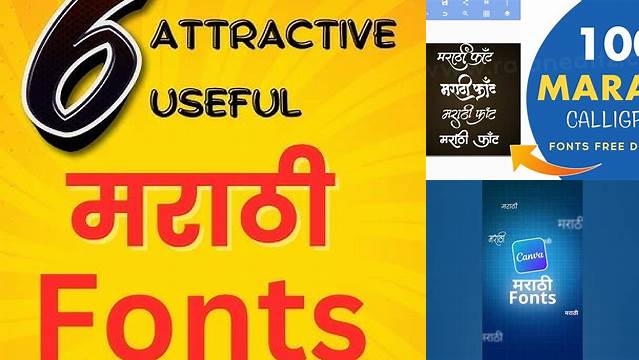
Download Marathi Fonts For Canva: Your Ultimate Guide
Are you looking to add a touch of authenticity and cultural flair to your designs on Canva? If so, you've come to the right place! In this comprehensive guide, we'll dive deep into the world of Marathi fonts for Canva, exploring everything from why they're important to how you can download and use them effectively. Whether you're creating social media graphics, presentations, or marketing materials, using the right Marathi font can make all the difference. So, let's get started, guys!
Why Use Marathi Fonts in Canva?
When it comes to design, typography plays a crucial role in conveying the right message and setting the tone. For projects targeting a Marathi-speaking audience, using Marathi fonts is not just a matter of aesthetics; it's about respect, connection, and effective communication. Imagine you're creating a poster for a local festival in Maharashtra. Using a generic English font might look out of place and fail to resonate with the audience. However, a beautifully crafted Marathi font can instantly grab attention, evoke a sense of cultural pride, and make the message more relatable. Moreover, using native fonts ensures that your content is accessible and readable to your target demographic. It shows that you understand and value their language and culture, which can significantly boost engagement and brand loyalty. In a globalized world, where cultural sensitivity is highly valued, incorporating Marathi fonts into your designs demonstrates inclusivity and a genuine effort to connect with your audience on a deeper level. Plus, let's be honest, using the correct font just makes your design look way more professional and polished, right? It's like wearing the right outfit to an important event β you want to make a good impression!
Understanding the Importance of Typography in Design
Now, let's talk a bit more about why typography, in general, is so vital in design. Typography is the art and technique of arranging type to make written language legible, readable, and appealing when displayed. Think of it as the visual voice of your message. Just like the tone of your voice can change the way your words are perceived, the font you choose can dramatically impact how your design is interpreted. A well-chosen font can enhance the message, create a specific mood, and reinforce your brand identity. Conversely, a poorly chosen font can make your design look unprofessional, confusing, or even undermine your message. For example, imagine you're designing a logo for a high-end luxury brand. Using a playful, cartoonish font would likely clash with the brand's image and send the wrong message to potential customers. Instead, a sleek, elegant font would better convey the brand's sophistication and exclusivity. Similarly, when designing a website, the font you choose for the body text can significantly impact readability and user experience. A font that's too small, too thin, or too decorative can strain the eyes and make it difficult for visitors to read your content. This can lead to frustration and a higher bounce rate. Therefore, understanding the principles of typography β such as font pairing, kerning, leading, and hierarchy β is essential for creating effective and visually appealing designs. And when you're working with a specific language like Marathi, choosing the right Marathi fonts is even more crucial to ensure clarity, cultural relevance, and overall impact.
Where to Find Marathi Fonts for Canva
Okay, so you're convinced that using Marathi fonts is important. Great! But where do you actually find them for Canva? Luckily, there are several excellent resources available, both within Canva itself and from external sources. First and foremost, Canva has a built-in font library that includes a selection of Marathi fonts. To access these, simply open Canva, start a new design, and click on the text tool. Then, in the font dropdown menu, you can search for "Marathi" or browse through the available options. While Canva's selection is decent, it might not have exactly what you're looking for. That's where external font websites come in handy. There are numerous websites that offer free and premium fonts, including a variety of Marathi fonts. Some popular options include Google Fonts, Font Squirrel, and MyFonts. Google Fonts is a fantastic resource for free, open-source fonts, and it has a growing collection of Marathi fonts that you can download and use in Canva. Font Squirrel is another great option for free fonts, offering a curated selection of high-quality typefaces. MyFonts, on the other hand, is a commercial font marketplace with a vast library of fonts, including many premium Marathi fonts. These premium fonts often offer more variety, advanced features, and better overall quality. When downloading fonts from external sources, make sure to check the licensing terms to ensure that you can use them for your intended purpose. Some fonts may be free for personal use but require a commercial license for business projects. And of course, always download fonts from reputable sources to avoid malware or other security risks.
Using Marathi Fonts Effectively in Your Designs
Okay, you've downloaded and installed your Marathi fonts β awesome! Now, let's talk about how to use them effectively in your designs. Just because you can use a particular font doesn't necessarily mean you should. Choosing the right font for your project is crucial, and there are several factors to consider. First and foremost, think about the overall tone and message of your design. Are you creating a formal invitation for a wedding? Or a casual flyer for a community event? The font you choose should reflect the mood and purpose of the design. For formal occasions, you might want to opt for a more elegant and traditional Marathi font with graceful letterforms. For casual events, you could use a bolder, more playful font that grabs attention. Readability is another essential factor to consider. While some Marathi fonts may look beautiful, they might not be very legible, especially at smaller sizes. Always choose a font that's easy to read, even for people with visual impairments. Pay attention to the spacing between letters and lines, as this can also affect readability. Font pairing is another important aspect of typography. It's generally a good idea to use a maximum of two or three fonts in a single design to avoid visual clutter. When pairing fonts, try to choose fonts that complement each other and create a harmonious look. For example, you might pair a bold Marathi font for headlines with a simpler, more readable font for body text. Finally, don't be afraid to experiment and try different Marathi fonts until you find the perfect fit for your project. Canva makes it easy to preview fonts and see how they look in your design, so take advantage of this feature and have fun exploring the possibilities!
Best Practices for Designing with Marathi Fonts on Canva
To wrap things up, let's go over some best practices for designing with Marathi fonts on Canva. These tips will help you create visually appealing and effective designs that truly resonate with your target audience. First and foremost, always prioritize readability. Choose Marathi fonts that are clear and easy to read, even at small sizes. Avoid fonts with overly decorative or complex letterforms, as these can strain the eyes and make your message difficult to understand. Pay attention to the kerning (the spacing between individual letters) and the leading (the spacing between lines of text). Adjust these settings as needed to improve readability and visual appeal. Use hierarchy to guide the reader's eye through your design. Make sure your headlines are larger and bolder than your body text, and use different font weights and styles to create visual contrast. This will help readers quickly grasp the main points of your message. When using multiple Marathi fonts, choose fonts that complement each other and create a cohesive look. Avoid using too many different fonts, as this can make your design look cluttered and unprofessional. Stick to a maximum of two or three fonts per design. Consider the cultural context of your design. The font you choose should be appropriate for the message you're trying to convey and the audience you're targeting. Using a traditional Marathi font for a formal event, for example, can add a touch of elegance and authenticity. Finally, don't be afraid to get creative and experiment with different Marathi fonts and design techniques. Canva offers a wide range of tools and features that can help you create stunning visuals. The most important thing is to have fun and let your creativity shine!
So, there you have it β a comprehensive guide to Marathi fonts for Canva download. We've covered everything from why they're important to where to find them and how to use them effectively in your designs. By incorporating Marathi fonts into your projects, you can add a touch of cultural authenticity, connect with your audience on a deeper level, and create visually appealing designs that truly stand out. Remember, typography is a powerful tool, and choosing the right Marathi font can make all the difference. So, go ahead, download some new fonts, experiment with different styles, and let your creativity flow. Happy designing, guys!